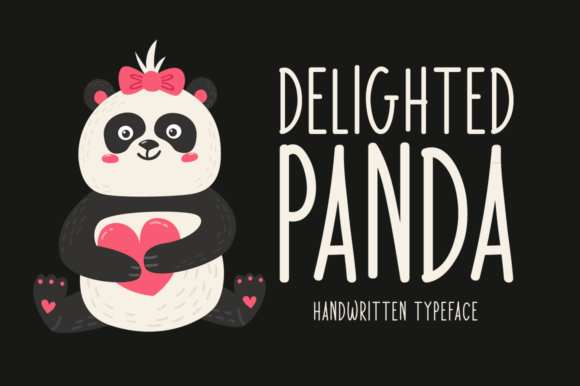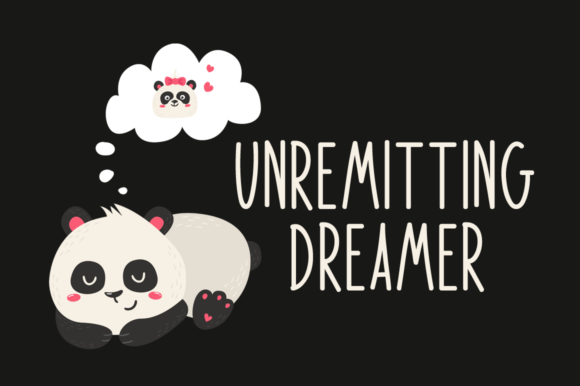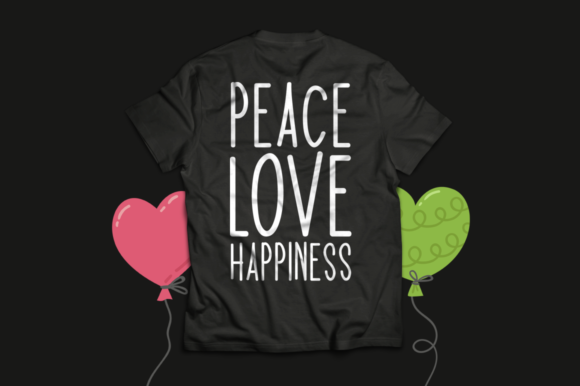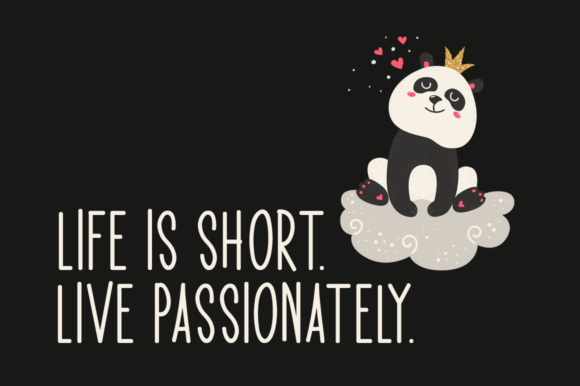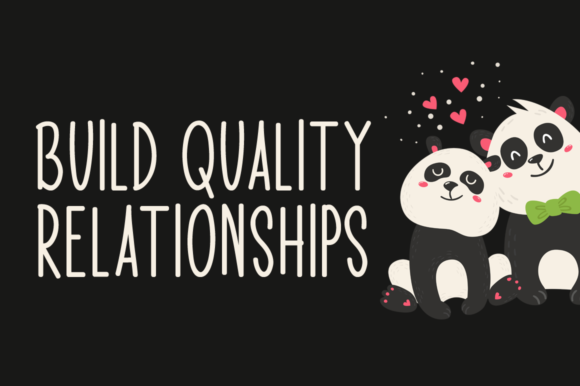
Delighted Panda Font
About Delighted Panda Font
Delighted Panda is a sweet and simple handwritten font. Its natural and unique style makes it incredibly fitting to a large pool of designs.